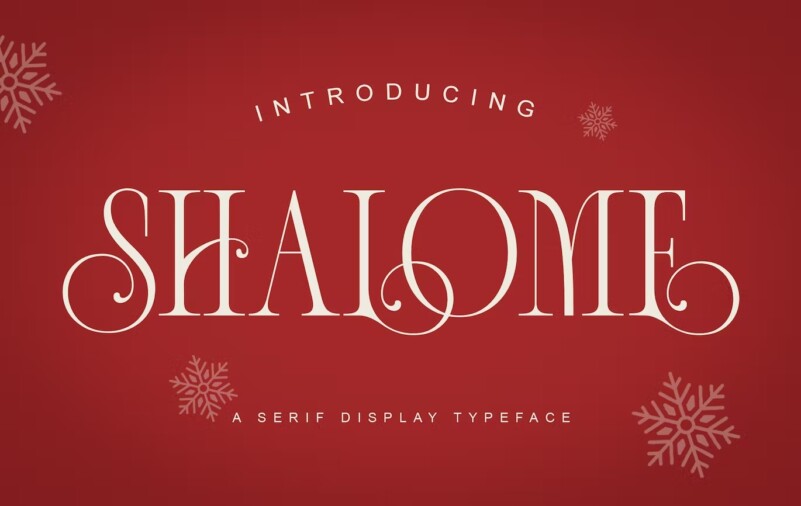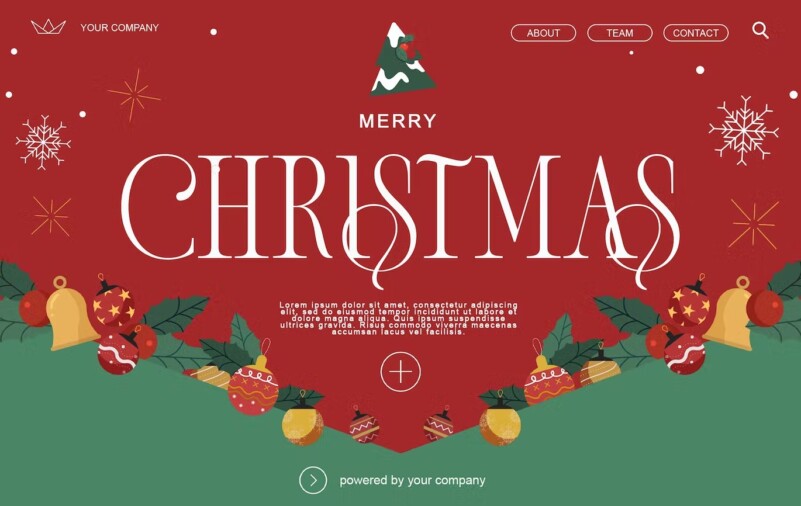
Shalome font
Hello, this time we would like to introduce a new product to you, namely “Shalome”, a classic, feminine and elegant style Serif display font, combined with a beautiful Alternate stylist.
The font Shalom is perfect for various projects such as logos and branding, invitations, stationery, wedding designs, social media posts, advertisements, print quotes, product packaging, product designs, labels, photography, watermarks, special events or anything else